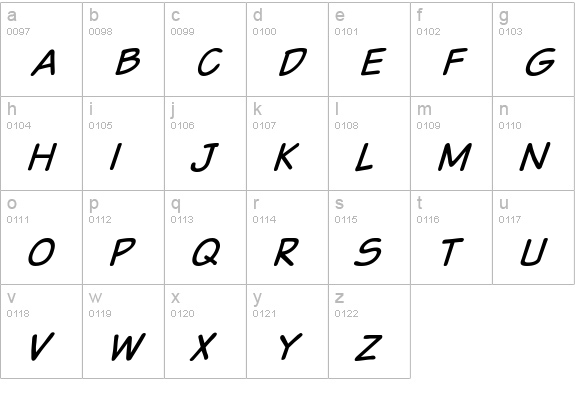
VTCSundaykomixcapsItalic Font Details
VTCSundaykomixcapsItalic is a unique and eye-catching font that effortlessly combines the charm of comic book lettering with a touch of modern elegance. With its playful yet sophisticated design, this font is perfect for adding a touch of whimsy and personality to any project. The italicized style of VTCSundaykomixcapsItalic adds a sense of movement and dynamism, making it ideal for capturing attention and creating a sense of excitement. Whether you're designing a poster, creating a logo, or crafting a digital illustration, this font will bring your work to life with its bold and energetic presence. One of the best features of VTCSundaykomixcapsItalic is that it is available for free download at FontsMarket.com. This means that you can easily access and use this font in your projects without incurring any additional costs. Whether you're a professional designer or a hobbyist, having access to high-quality fonts like VTCSundaykomixcapsItalic can make a significant difference in the overall impact and professionalism of your work. Not only is VTCSundaykomixcapsItalic freely available, but it is also versatile and easy to use. Its clear and legible letterforms ensure that your message is always conveyed with clarity, while its unique styling adds a touch of personality and flair. This font is suitable for a wide range of applications, from headlines and titles to captions and body text. In conclusion, VTCSundaykomixcapsItalic is a must-have font for anyone looking to infuse their designs with a playful and energetic vibe. With its free availability at FontsMarket.com, it is an accessible and valuable resource for designers of all levels. Download VTCSundaykomixcapsItalic today and unleash your creativity with this captivating and versatile font.